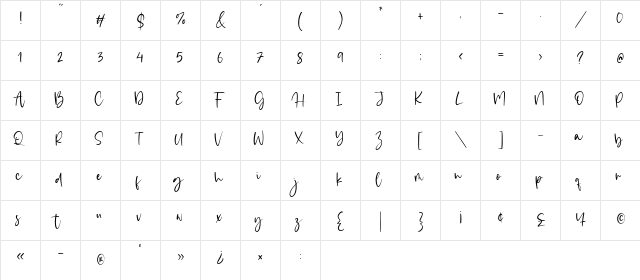
Dailymoon Regular
Design Context for Dailymoon Typeface
Dailymoon is a composed and adaptable typeface that performs quietly and consistently across a wide range of design contexts.
Pro Tip: Use Dailymoon in both headline and body roles to test its range before committing to a single application.